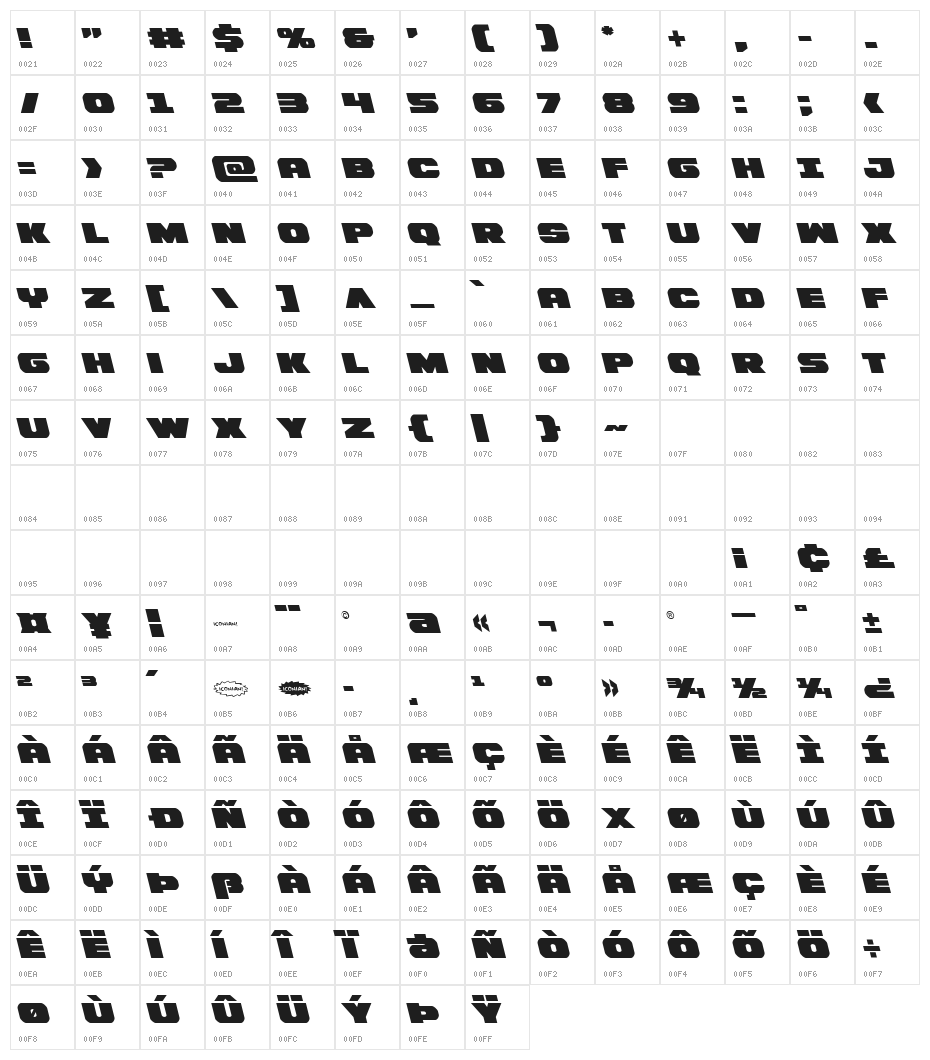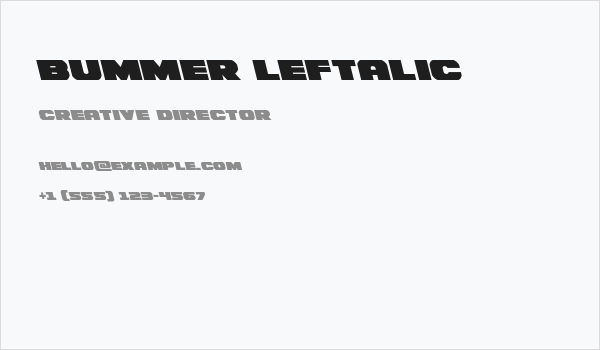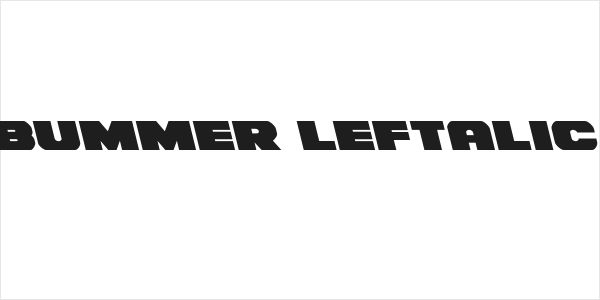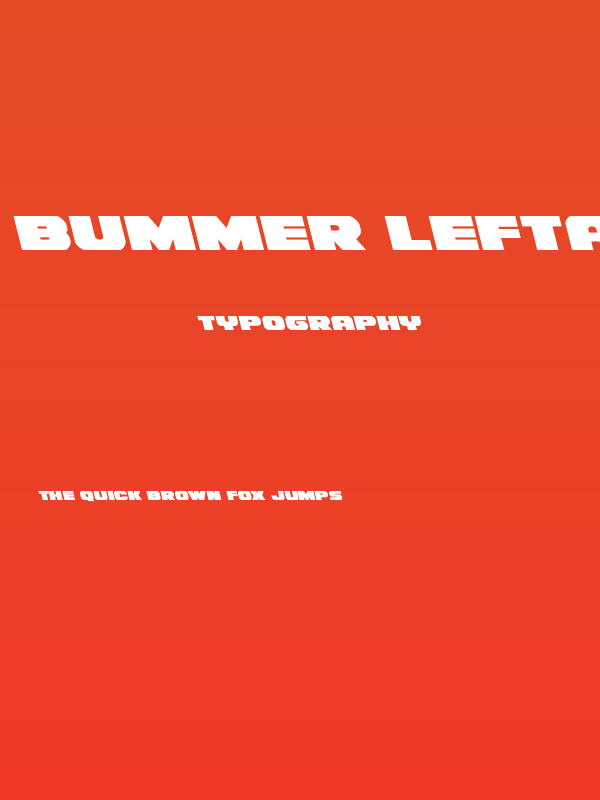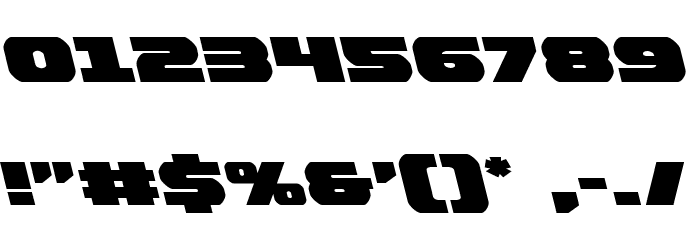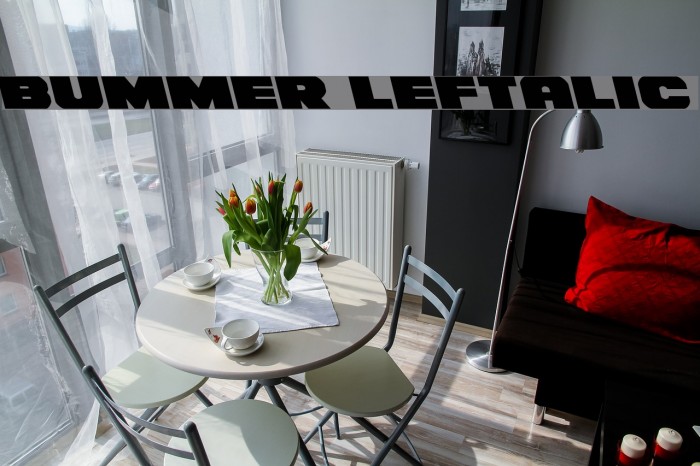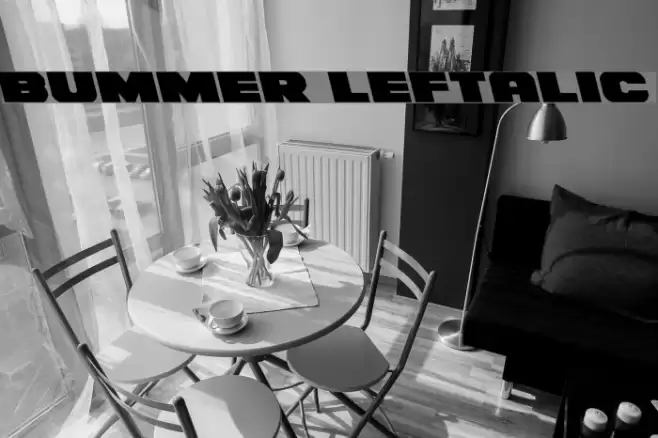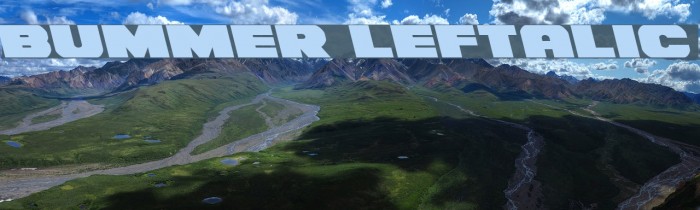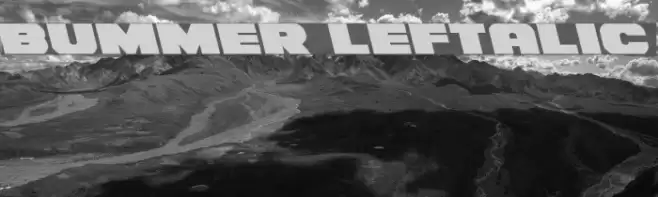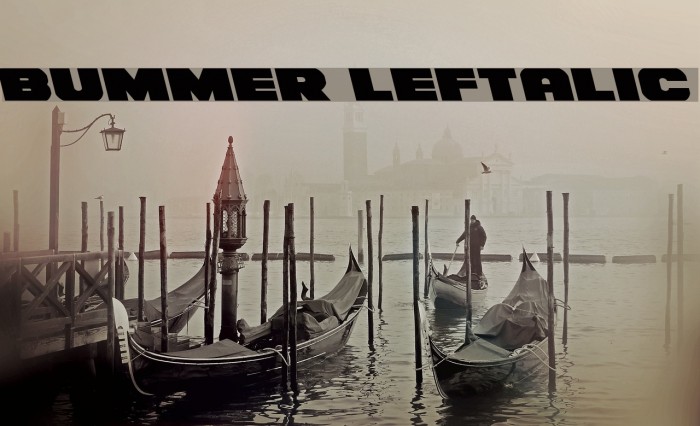
Bummer Leftalic Font
Bummer Leftalic Description
This font exhibits a bold and impactful style with a distinct slant to the left, giving it a dynamic and energetic appearance. The characters are wide and blocky, featuring sharp angles and a strong presence. The uppercase and lowercase letters maintain a consistent weight, contributing to a cohesive look. Numbers and special characters follow the same bold and angular design, ensuring uniformity across all glyphs. The font's heavy weight and unique slant make it stand out, ideal for attention-grabbing designs.
| Proposed Projects | Ideal for posters, headlines, branding, and any project requiring a strong visual impact. |